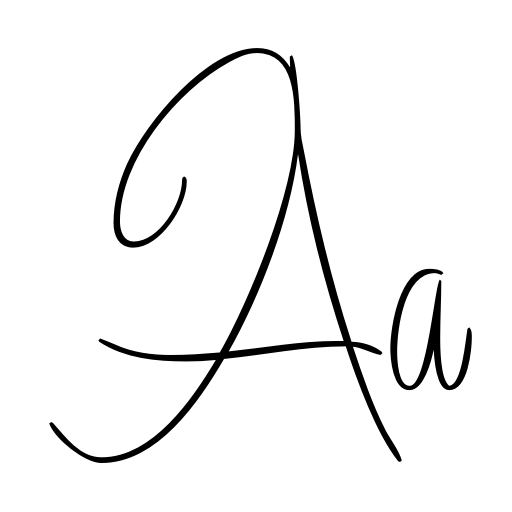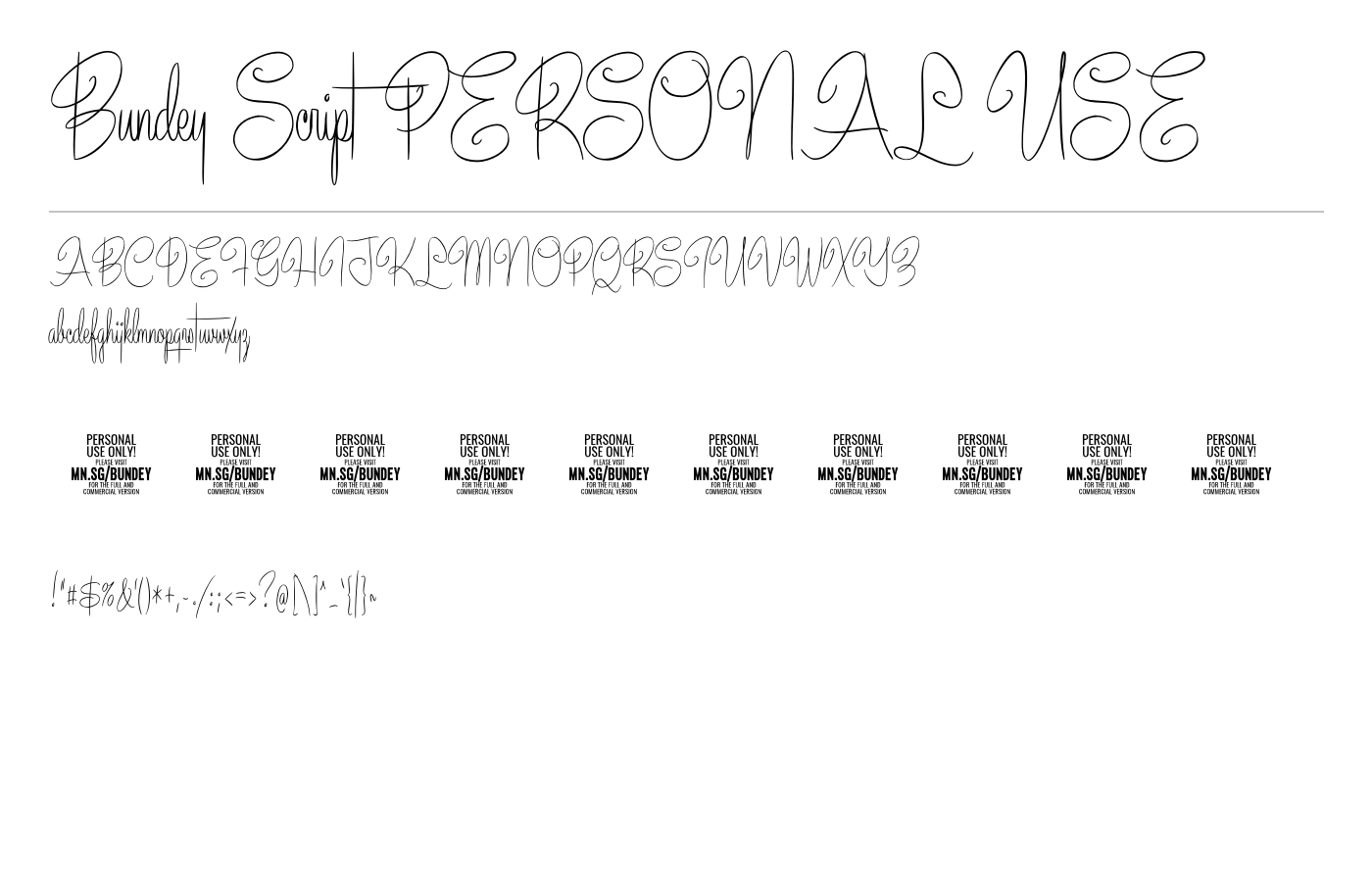
Bundey Script is a delicate, hand-drawn script font characterized by its tall, slender letterforms and elegant, looping strokes. Its thin, airy lines give it a whimsical and sophisticated feel, making it ideal for personal projects, invitations, or branding that aims to convey a playful yet refined personality. This font works best in decorative or headline uses where its unique, artistic style can truly stand out.
Bundey Script PERSONAL USE Font
About Bundey Script PERSONAL USE Font